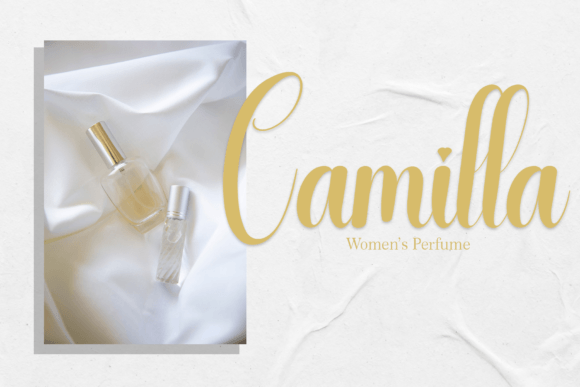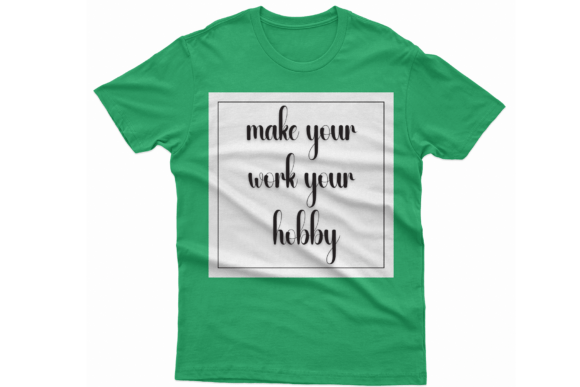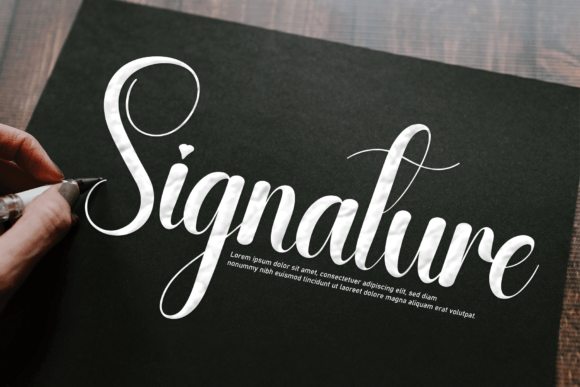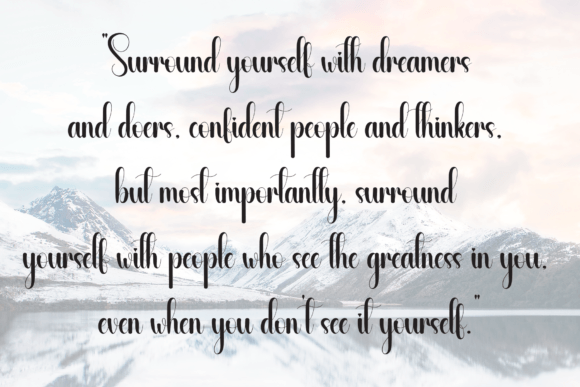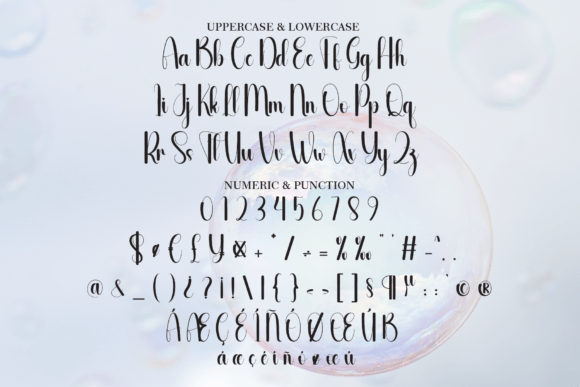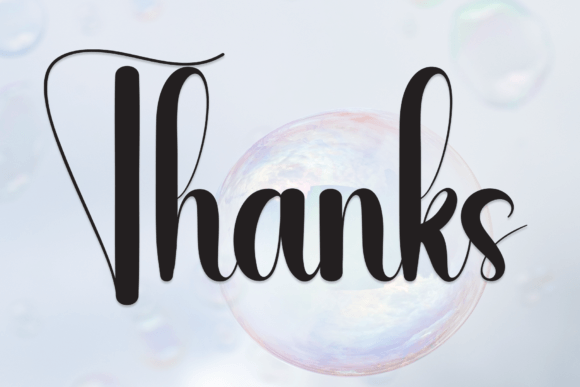
The Perfect Font for a Touch of Whimsy
Have you ever been brainstorming a design project and suddenly, a spark of inspiration hits you? For designers, those moments are what make all the hard work worth it. For me, it was the moment I stumbled upon the Bubbles Font – a sweet and friendly handwritten font that screams fun and playfulness.
Bubbles Font is more than just a pretty face; it’s a versatile tool designed to add a touch of whimsy to any project. Whether you’re crafting wedding invitations, designing birthday cards, or working on a branding project, this font is sure to bring a smile to your face and a dash of personality to your designs. Its fresh and neat style makes it a valuable asset for any designer looking to add a little extra flair to their work.
Bubbles Font Key Features
- Unique Characteristics: Bubbles Font features a unique, hand-drawn design with rounded shapes and soft lines, creating a playful and whimsical feel perfect for children’s books, magazines, and other creative projects.
- Kerning and Ligatures: Bubbles Font includes advanced kerning and ligature features, ensuring smooth text flow and a professional appearance in any design context.
- Scalability: The font is designed to be highly scalable, maintaining its unique character and clarity even at small font sizes, making it ideal for digital applications and small print settings.
Bubbles Font Review
I recently had the chance to work with the Bubbles font, and I must say it’s a mixed bag. Here’s my honest review.
- Cute and playful feel: The Bubbles font has a fun, whimsical vibe that’s perfect for children’s books, party invitations, or any other project that needs a lighthearted touch.
- Legibility: Despite its playful nature, the font is surprisingly easy to read, even at smaller sizes.
- Limited versatility: While the Bubbles font is great for certain projects, it may not be the best choice for more formal or professional designs.
- Overuse: The font’s playful nature can make it feel overly used or cliché if applied too heavily.
- Font size limitations: At larger font sizes, the Bubbles font can start to feel a bit cramped and difficult to read.
Overall, the Bubbles font is a solid choice for projects that require a lighthearted, playful touch. While it may have some limitations, its customization options and legibility make it a great option for designers who know how to use it effectively.
Bubbles Font: A Practical Application Guide
Tips: Use the Bubbles Font to create playful and eye-catching headings, or to add a touch of whimsy to your designs.
Tips: Use the Bubbles Font to create custom typography for your designs, or to add a touch of personality to your branding.
Tips: Use the Bubbles Font to add a touch of personality to your presentations or documents.
The Bubbles Font is perfect for:
Designing children’s products, such as toys or educational materials.
Creating playful and eye-catching marketing materials, such as brochures or posters.
Adding a touch of whimsy to your branding or packaging.
Alternatives to Bubbles Font
Comic Sans MS is a playful, cursive font that is often used in informal settings, such as blogs, social media, and children’s materials. It is a good alternative when you need a friendly and approachable tone, but be aware that it is often criticized for being overused and clichéd. Compared to Bubbles Font, Comic Sans MS has a more traditional and less whimsical feel, but can still convey a sense of playfulness.
Pacifico is a modern, elegant script font that is often used in luxury and high-end designs. It is a good alternative when you need a sophisticated and refined tone, but be aware that it may not be suitable for informal or playful designs. Compared to Bubbles Font, Pacifico has a more refined and polished feel, with a more subtle and sophisticated aesthetic.
Q: Can I customize the Bubbles Font for my specific design project?
Yes, the Bubbles Font is designed to be highly customizable. You can adjust the font’s size, color, and other properties using the controls in your design application. Additionally, the font’s OpenType features allow for advanced typographic effects, such as ligatures, swashes, and contextual alternates.